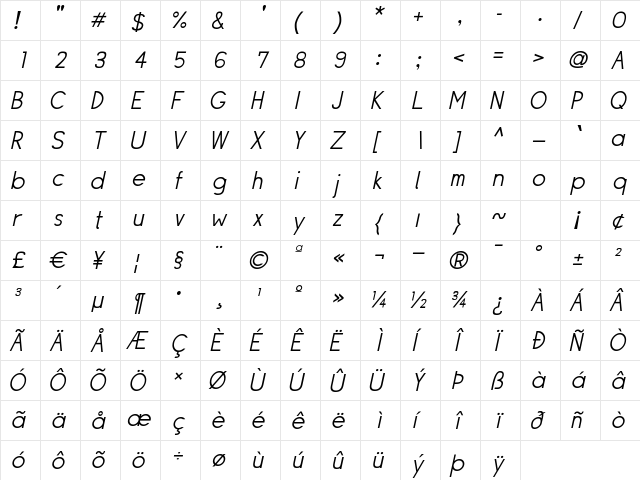
Siple LightOblique
Design Context for Siple Typeface
Siple offers clean, dependable letterforms without strong stylistic allegiance, making it a practical choice for designers who need flexibility. The dynamic lean of this cut emphasises speed and emphasis in any layout. The delicate stroke weight brings airiness and refinement to layouts.
Pro Tip: Use Siple for emphasis, pull quotes, and subheadings where its slanted energy can add rhythm to the layout.